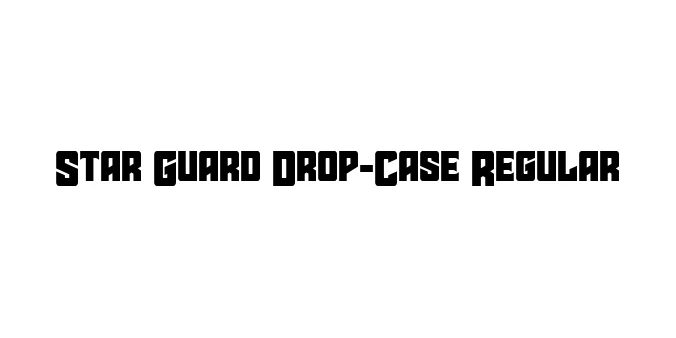
Star Guard Drop-Case Regular
Designed by Dan Zadorozny
Star Guard Drop-Case Regular is a robust, futuristic display typeface designed to evoke the aesthetic of intergalactic exploration and high-tech military hardware. Characterized by its heavy, blocky letterforms and distinct geometric construction, this font family utilizes a 'drop-case' style where specific characters sit lower on the baseline or feature unique structural offsets to create a rhythmic, mechanical visual flow.
Originating from the portfolio of Iconian Fonts, this typeface is a staple for projects requiring a sense of power and technological advancement. Its sharp angles and consistent stroke widths make it highly legible at large scales, ensuring that it captures attention in cinematic titles, digital interfaces, and high-impact branding materials within the science fiction and gaming genres.
Star Guard Drop-Case Regular Best Uses
Perfect for science fiction film titles and comic book mastheads.
Ideal for futuristic HUDs and menu screens in space-themed video games.
Suitable for technology startups, aerospace engineering, or electronic music artists.
Effective for bold graphic prints on streetwear and promotional apparel.
Great for conventions, e-sports tournaments, and tech exhibitions.